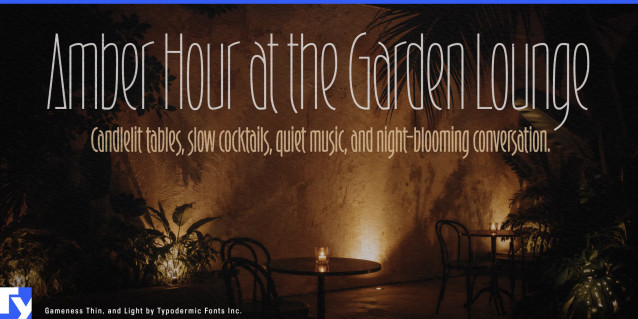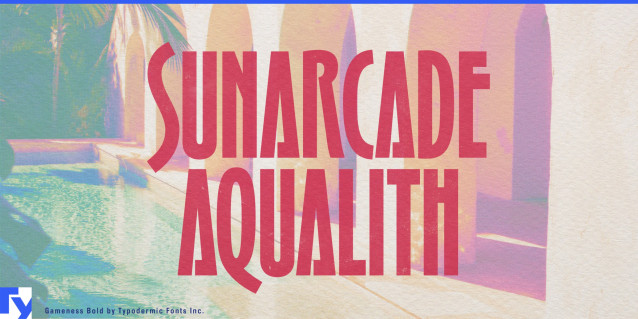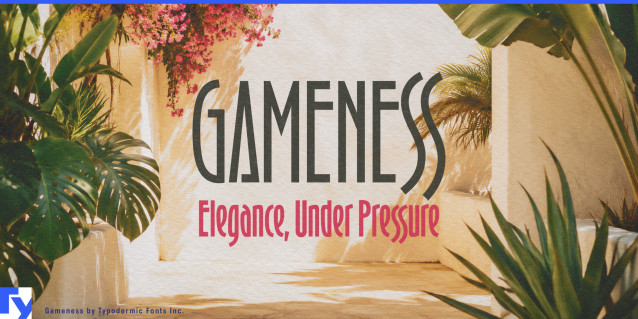
Gameness Font Family
Gameness is a tall, condensed display family with fashion-house poise and competitive tension. Its slender vertical forms rise with Art Deco confidence, creating a sharp architectural rhythm that feels elegant, focused, and controlled. In logos, labels, and headline settings, Gameness brings height and polish without wasting horizontal space.
The family moves from delicate Thin and Extra-Light styles suited to perfume labels, skincare packaging, couture invitations, and jewelry branding, through stronger weights for boutique hotel signage, cocktail menus, fashion lookbooks, and luxury event graphics. Heavy and Black add a more commanding voice for championship titles, tennis tournament posters, motorsport graphics, fight-night bills, and premium sports branding that calls for restraint as well as impact.
Lowercase letters and matching italics give Gameness room to handle product lines, menu headings, packaging flavor names, runway show programs, gallery posters, and high-end promotional materials. Subtle alternates, including a barred capital A and nesting S pairs, let designers adjust the texture of words and logos while preserving the family’s clean vertical rhythm. Gameness is poised, narrow, dramatic, and built to stand tall.